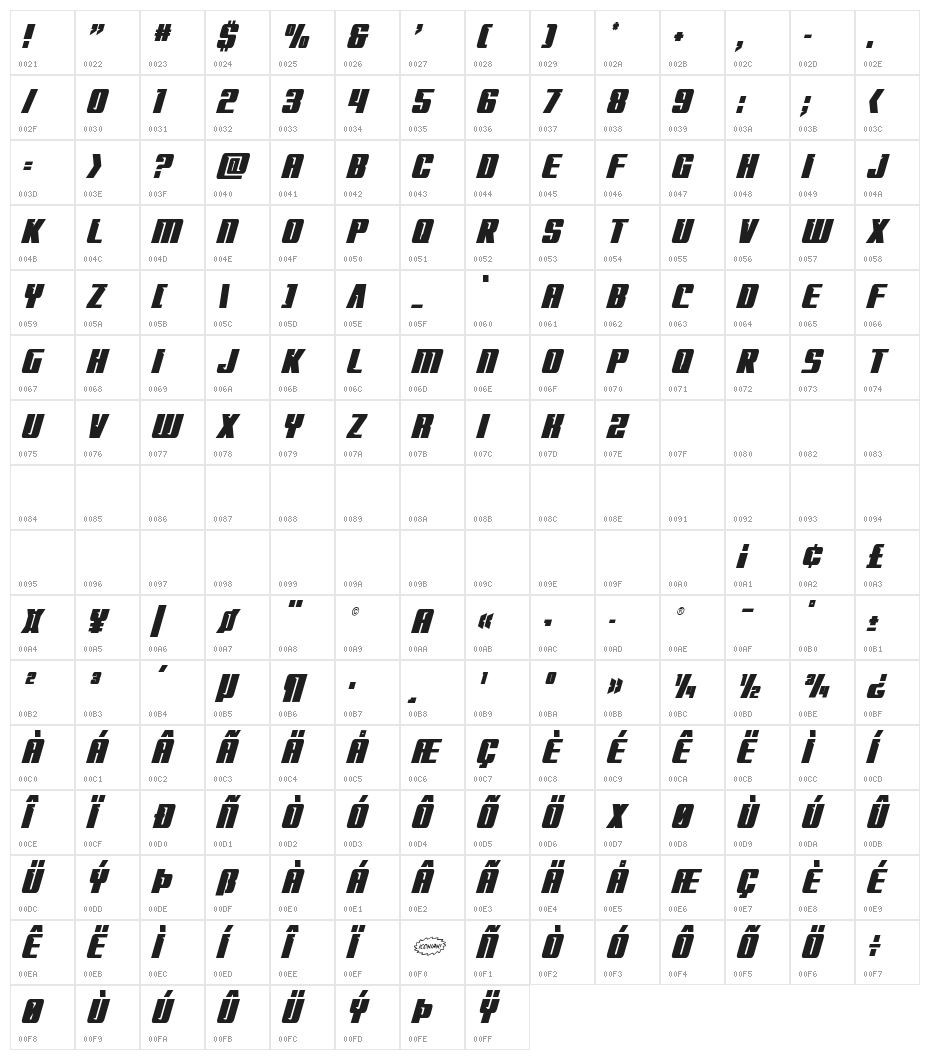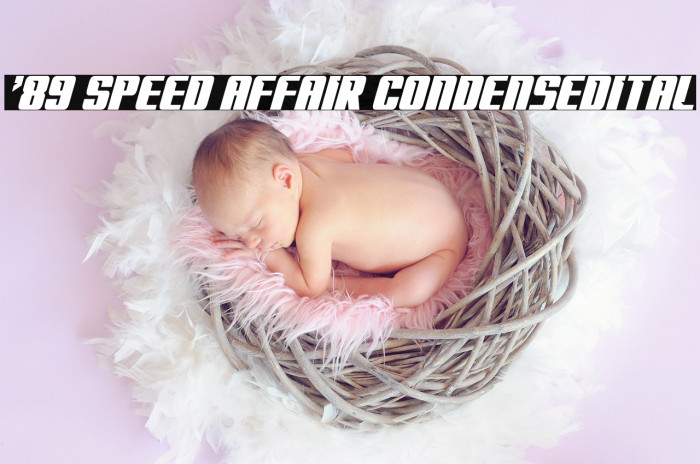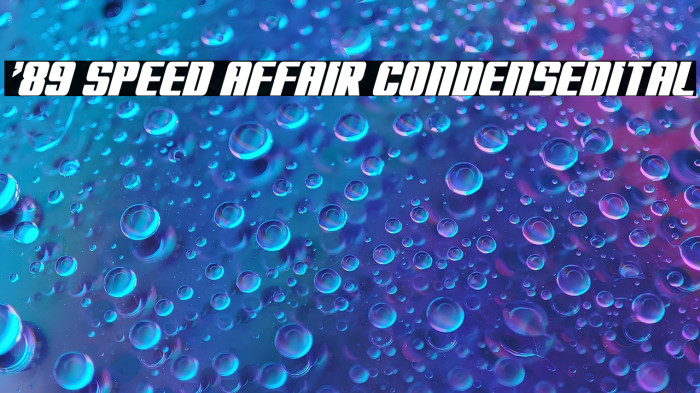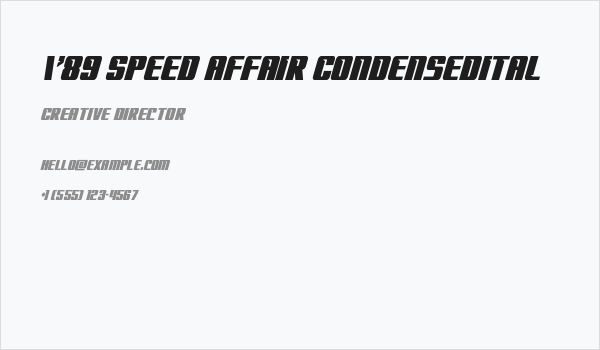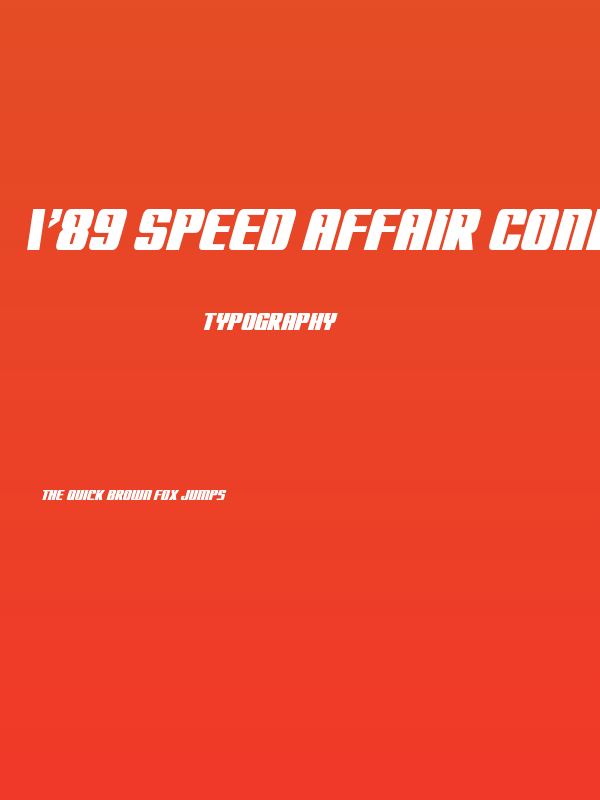
'89 Speed Affair CondensedItal Font
'89 Speed Affair CondensedItal Description
This font features a bold and dynamic style with a strong emphasis on speed and movement. The characters are condensed and italicized, giving them a sleek, aerodynamic appearance. The strokes are thick and consistent, providing a sense of power and urgency. The angular design of the letters enhances the impression of forward momentum, making it ideal for projects that require a sense of action or energy. The numbers and special characters maintain the same bold and condensed style, ensuring uniformity across all text elements.
| Proposed Projects | Ideal for sports branding, automotive advertisements, action movie posters, and dynamic event promotions. |